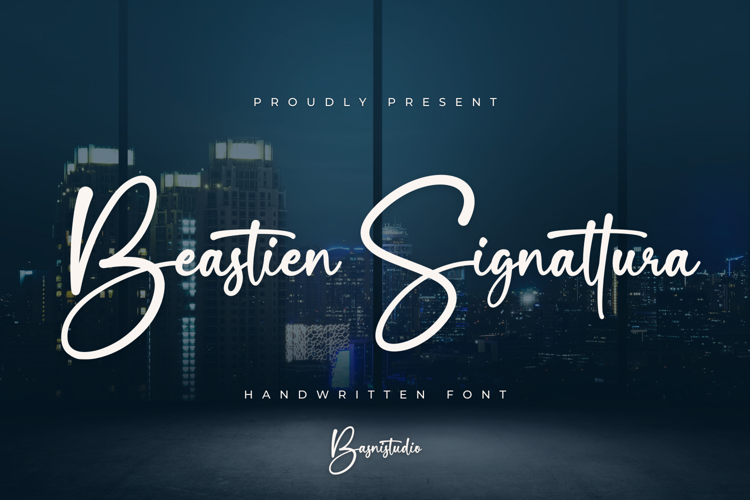
Beastien Signattura Font
INTRODUCING Beastien Signattura
Bastien Signattura is a Handwritten Font that adds a elegant, versatile touch to everything from branding and social media to invitations and packaging.